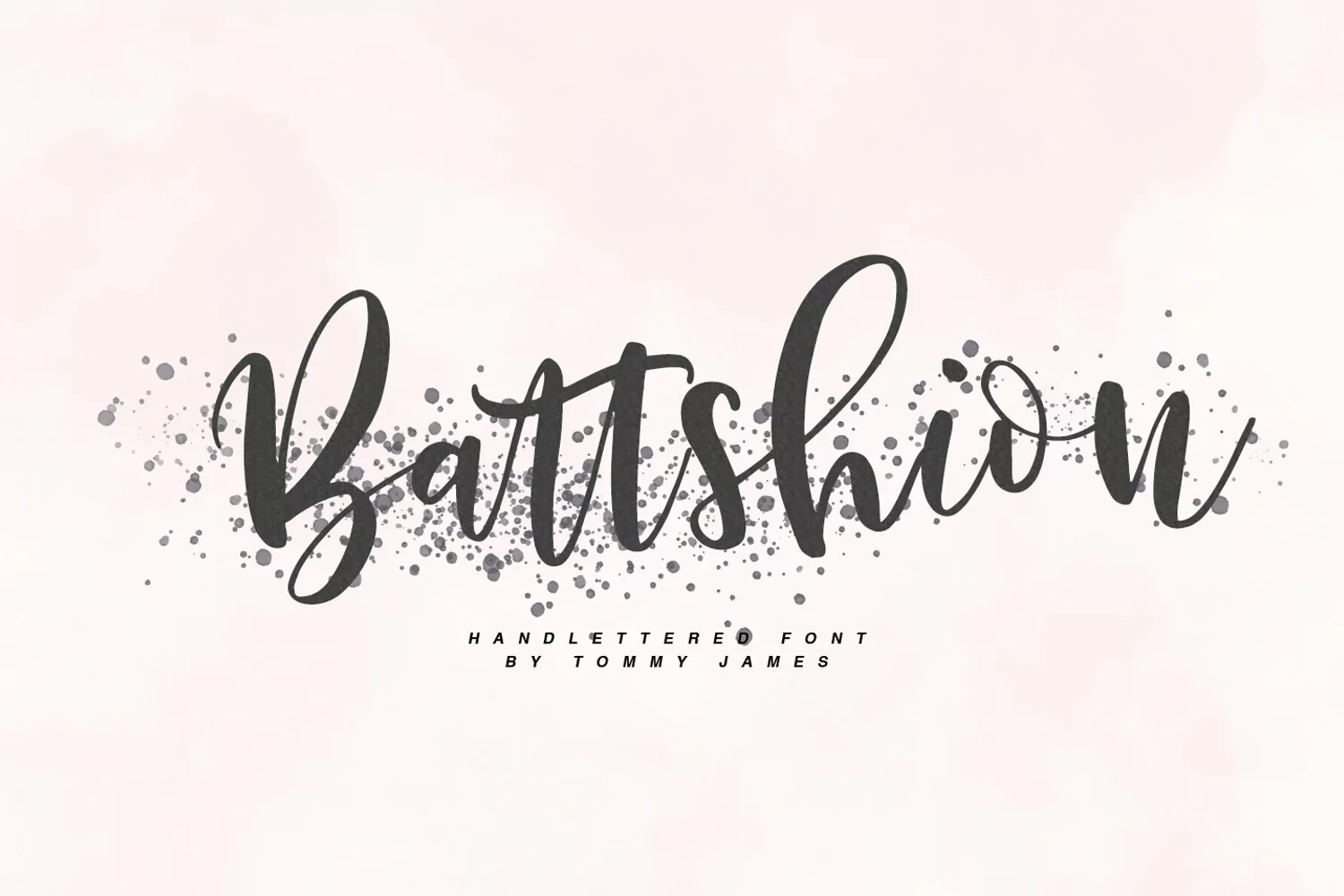
Battshion is a beautifully flowing script font. With a classic calligraphy feel, Battshion has a great bouncy baseline creating a touch of whimsy while still feeling classic and elegant. Script fonts like Battshion work amazingly for wedding designs, logos, branding, quotes and much more.